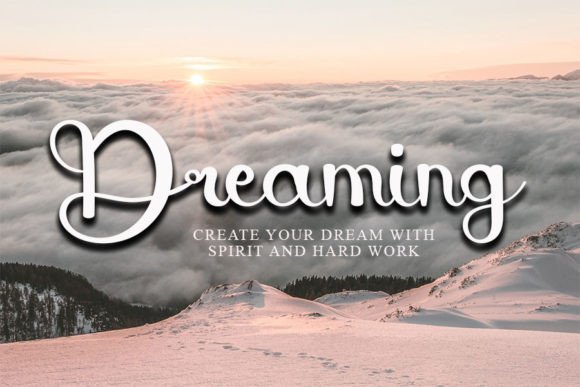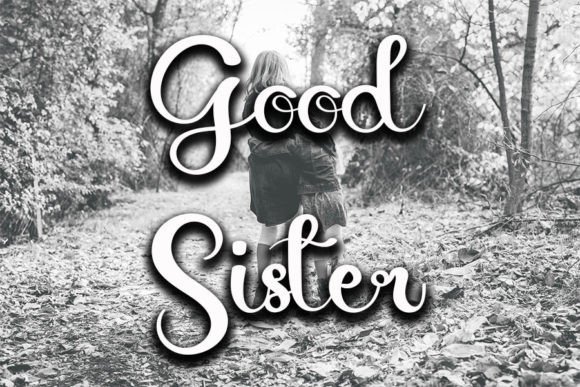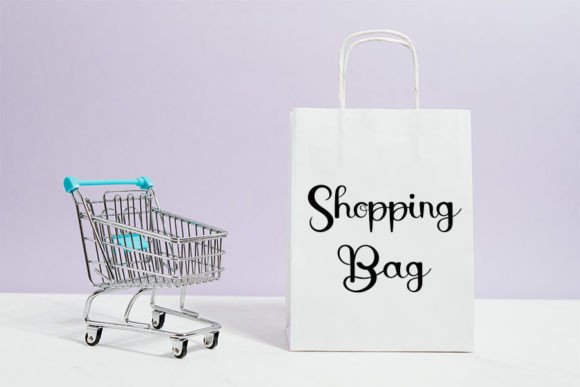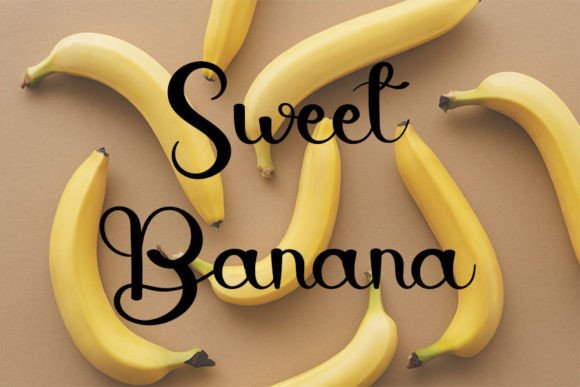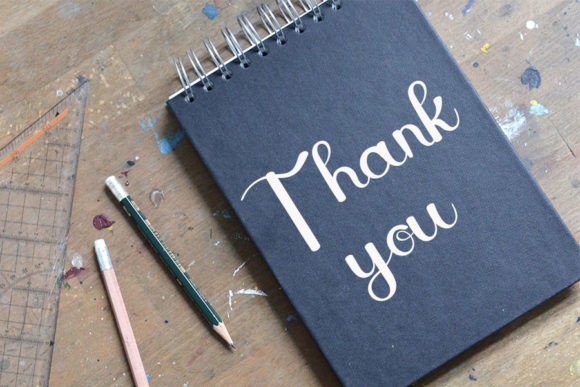
Introducing Greenlight Font: The Perfect Choice for Romantic and Delicate Designs
Are you a designer or crafter looking for a font that exudes romance and elegance? Look no further than Greenlight Font, a slim and delicate handwritten font that is sure to capture the hearts of your audience. With its dainty and joyful feel, Greenlight Font is the ideal choice for writing wedding invitations, cards, or any other design that requires a romantic, personalized touch.
The Characteristics of Greenlight Font
Greenlight Font is a unique and beautiful handwritten font that boasts a range of characteristics that make it perfect for romantic and delicate designs. Some of its key features include:
- Slim and delicate: Greenlight Font is a slim and delicate font that features thin lines and subtle curves, giving it a light and airy feel.
- Handwritten feel: With its fluid and natural strokes, Greenlight Font has a genuine handwritten feel that adds a personal touch to any design.
- Dainty and joyful: Greenlight Font is a dainty and joyful font that exudes happiness and positivity, making it perfect for designs that require a touch of whimsy and romance.
Uses for Greenlight Font
Greenlight Font is a versatile font that can be used for a range of design projects, including:
- Wedding invitations: With its romantic and elegant feel, Greenlight Font is the perfect choice for writing wedding invitations that will make your clients’ special day even more memorable.
- Cards and stationery: Greenlight Font is also ideal for designing cards and stationery that require a personal touch, such as birthday cards, thank-you cards, and greeting cards.
- Branding and packaging: Greenlight Font can also be used for branding and packaging designs that require a delicate and feminine touch, such as cosmetics, jewelry, and food packaging.
Why Choose Greenlight Font?
There are many reasons why Greenlight Font is the perfect choice for designers and crafters looking for a romantic and delicate font. Some of the benefits of using Greenlight Font include:
- Unique and elegant: Greenlight Font is a unique and elegant font that will add a touch of sophistication and glamour to any design.
- Easy to read: Despite its delicate feel, Greenlight Font is easy to read and understand, making it perfect for designs that require a clear and concise message.
- Versatile: Greenlight Font is a versatile font that can be used for a range of design projects, from wedding invitations to branding and packaging.
Tips for Using Greenlight Font
To get the most out of Greenlight Font, here are some tips to keep in mind:
- Pair with contrasting fonts: To create visual interest and hierarchy, pair Greenlight Font with contrasting fonts that have a bolder or more dramatic feel.
- Use for headlines and body text: Greenlight Font can be used for both headlines and body text, making it a great choice for designs that require a clear and concise message.
- Experiment with colors: Greenlight Font looks beautiful in a range of colors, from soft pastels to rich jewel tones. Experiment with different colors to find the perfect combination for your design.
Greenlight Font is a beautiful and elegant handwritten font that is perfect for designers and crafters looking for a romantic and delicate touch. With its slim and delicate feel, Greenlight Font is ideal for writing wedding invitations, cards, and other designs that require a personal touch. Whether you’re a seasoned designer or a crafty DIY enthusiast, Greenlight Font is a great choice for any design project that requires a touch of whimsy and romance.